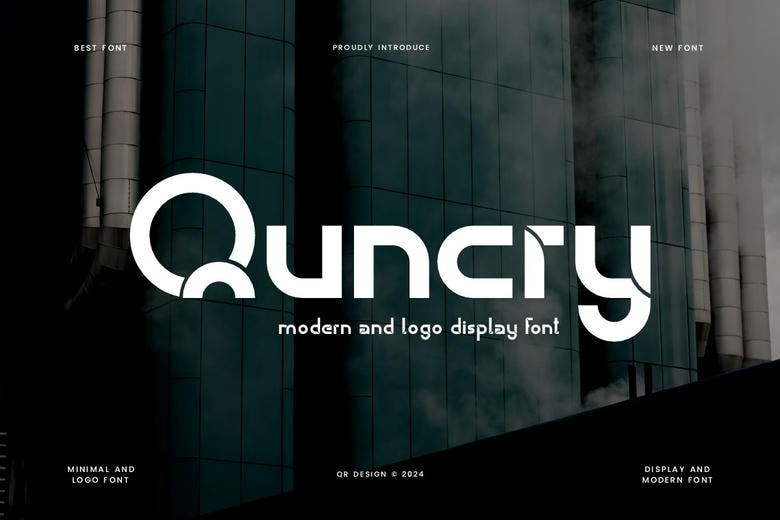
Quncry Font
Quncry Font is a modern and true type sans serif font. The font well fits any branding project like logo, sport and many others. Emphasized in a broad field of compartments as well as in most situations.
Quncry Sans Serif Font